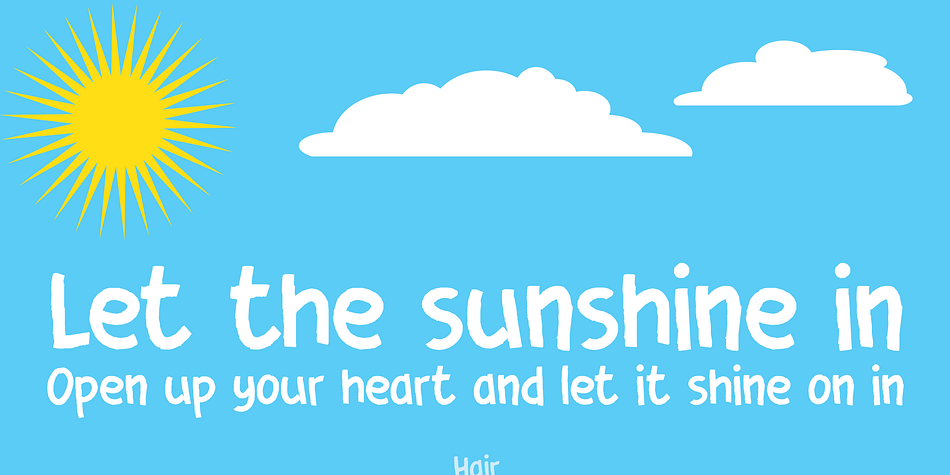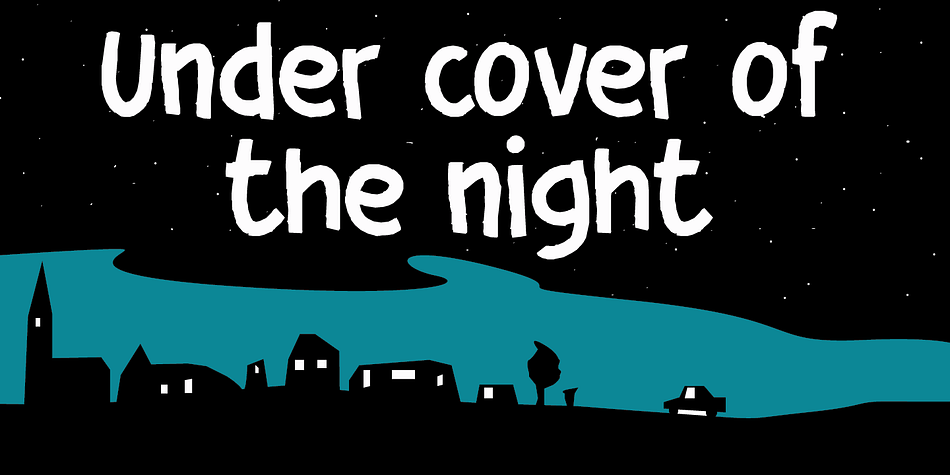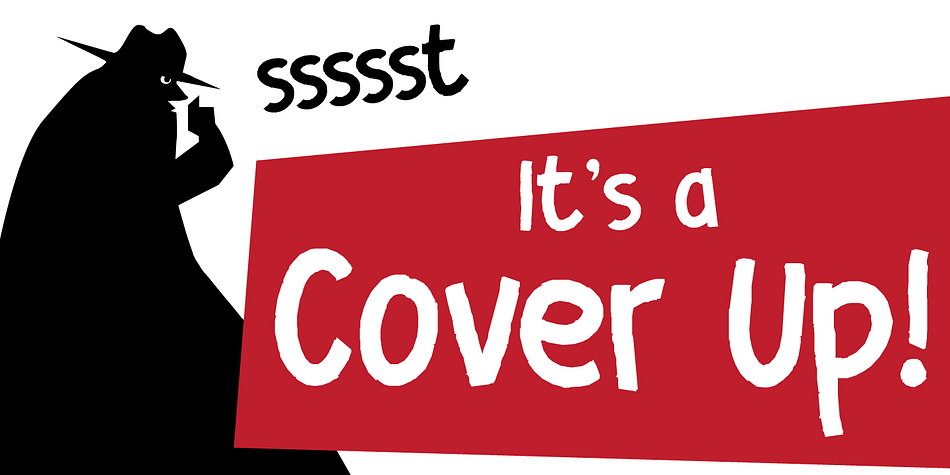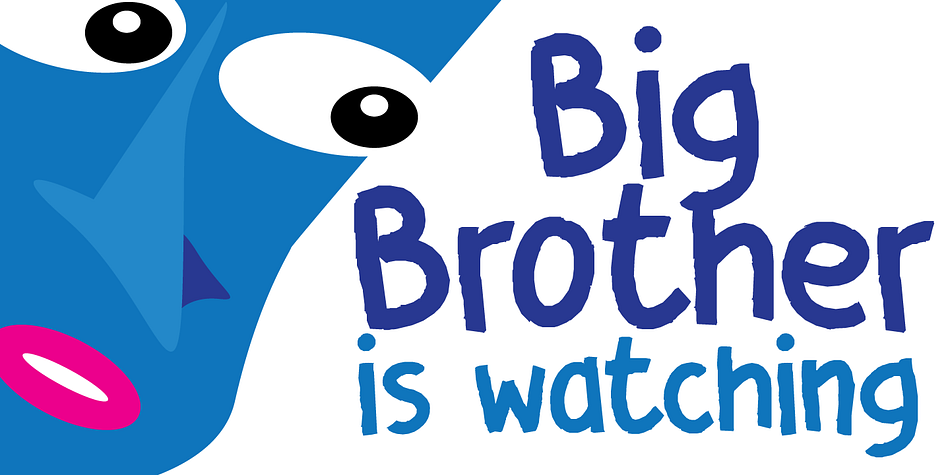
Cover Up is a comic and hand drawn font family. This typeface has two styles and was published by Hanoded.
Cover Up is a roughish font with a lot of character. Its edges are slightly jagged, there is no real baseline and it looks like the whole thing has been sand blasted.
When you get to know Cover Up, you’ll find that it comes with a hidden agenda, because underneath the rough exterior lives an oh-so sweet heart. Use it for your product packaging, book covers and posters - it won’t disappoint you.
Comes with an illegal amount of diacritics.